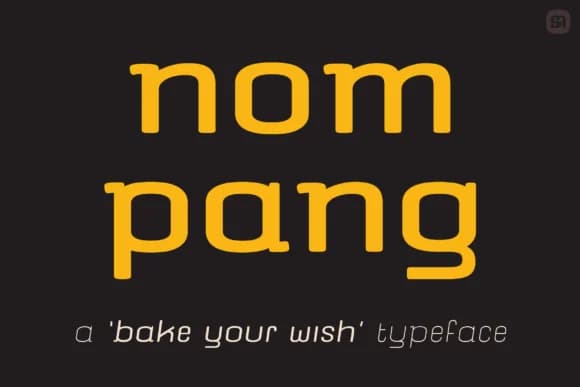
This slab serif radiates genuine warmth and casual charm, the kind of personality that reads like a handwritten note from a friend. Nompang, designed by DHAMMADHA STUDIO, brings a smoothly rendered, approachable character that lands perfectly in spaces where both friendliness and readability matter. You'll feel its presence whether it's displayed on a cafe menu board or tucked into a greeting card.
Coffee shop menus and cafe signage are its native habitat, where the font's warmth and legibility work in concert. Boutique bakery packaging looks sharp with Nompang carrying everything from artisan bread labels to jam jar designs. Wedding invitation suites gain an unexpected but welcome friendliness when set in this typeface, avoiding the formality trap. Holiday cards, school project headers, birthday messages, and cute gift tags all find natural homes here. The font's smooth strokes hold up across sizes, from large headlines down to supporting text, making it versatile for both primary and secondary design roles.
Nompang Font is a slab serif font that shines as a display or heading face. Pair it with a clean sans-serif or serif font for body text β the contrast creates a clear hierarchy while the two styles stay balanced and easy to read.